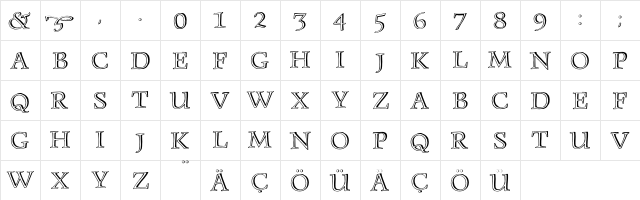
Monument Regular
| Designer | Dieter Steffmann |
Design Context for Monument Typeface
Monument offers clean, dependable letterforms without strong stylistic allegiance, making it a practical choice for designers who need flexibility.
Pro Tip: Pair Monument with a font of contrasting weight or personality to build a more expressive typographic hierarchy.